Questions for Font Creators Part 3: Favorite Hiragana Glyph 2
The question “What is your favorite hiragana glyph?” was asked to staff at the Type Project.
In the previous article, we presented answers that mentioned hiragana design. In this article, the answers in which “characters used in names” (second highest answers following hiragana design) were introduced.
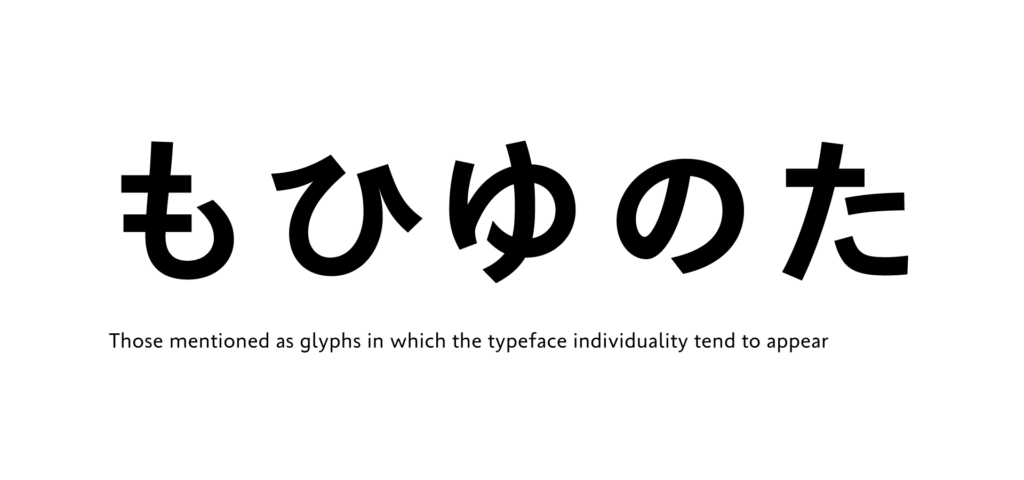
- ”も”:
It is in my name, so I think this is a character that I have always been confronted with. I like to write this character by connecting the horizontal stroke with a smart silhouette.
- “ひ”:
“ひ” is the most frequently written hiragana as a part of my name. However, I never felt I have written it well, so it is more like a character I care for when I look at it, rather than like.
- “ゆ”:
In addition to the fact that I like its round shape, it is used in my name, so I always want to know whether or not the shape of “ゆ” is to my liking when I look at the typeface. When I write by myself, I like to write it unicursally.
- “の” and “た”:
These hiragana characters are in my name, so I like them.
Because they have many opportunities to look at and write hiragana characters used in their names, many of the designers come to care about them. It is an interesting point that they have their preferences when writing by themselves.